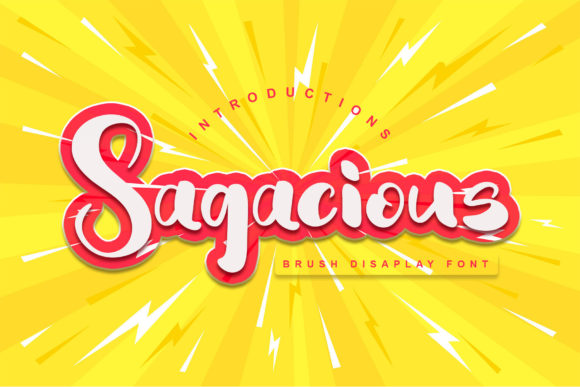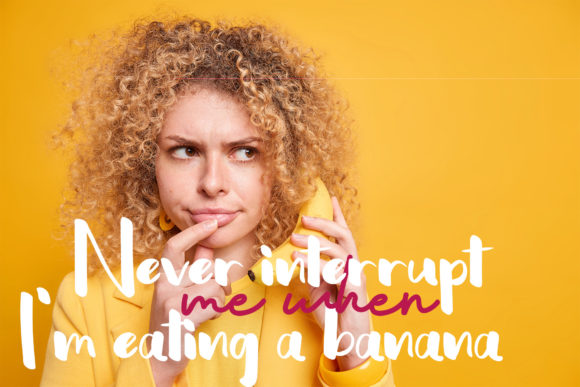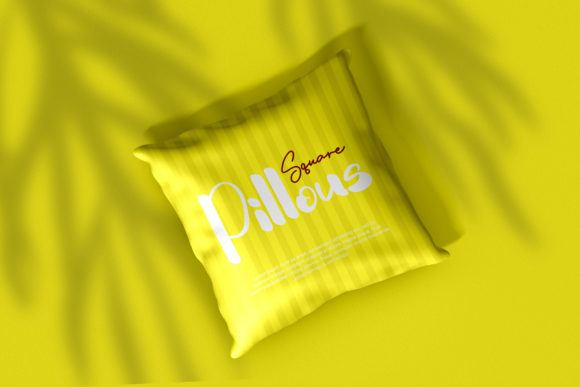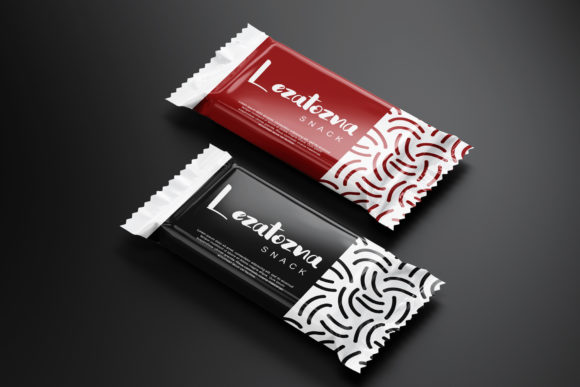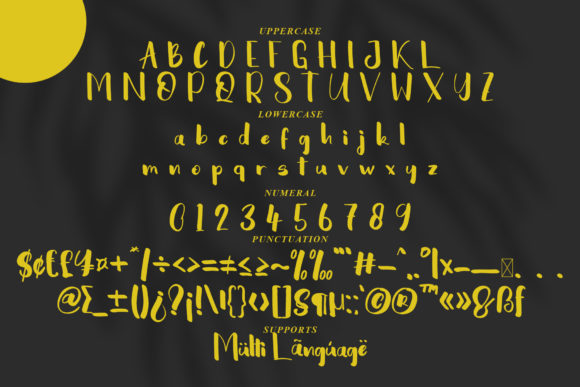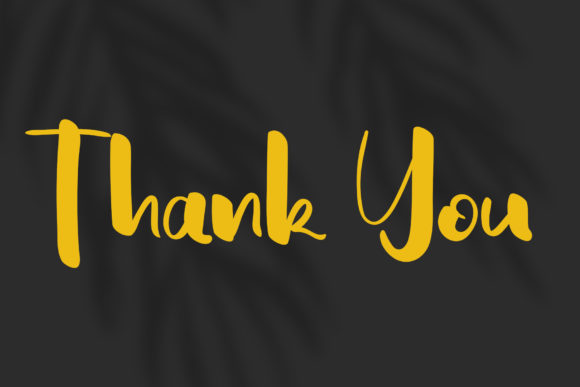
Sagacious Font
About Sagacious Font
Sagacious is a modern display font that is readable, friendly and stylish. It is defined by smooth curves and is perfect for fashion branding or editorial designs. Add it confidently to your projects, and you will love the results.